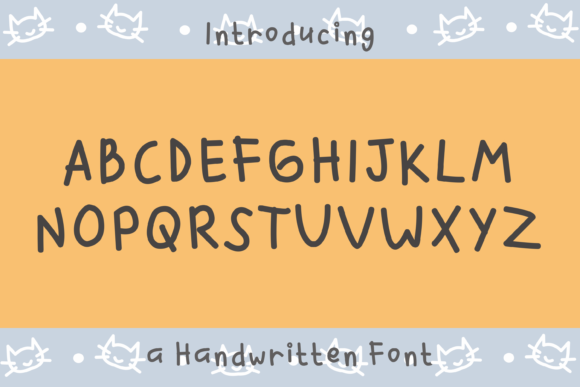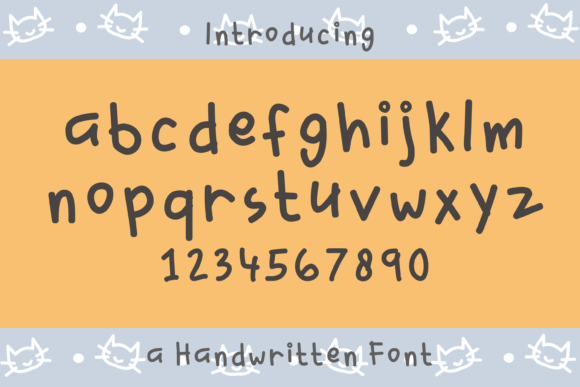
Introduction to Smiley Cat Font
Have you ever been working on a creative project, and you just can’t seem to find the right font to match your vision? You scroll through endless options, and nothing seems to capture the playful, whimsical feel you’re going for. That’s where the Smiley Cat Font comes in – a simple yet charming handwritten font that’s perfect for adding a touch of personality to your designs.
As a valuable resource for designers, Smiley Cat Font is a game-changer. Its natural and unique style makes it incredibly versatile, allowing you to use it for a wide range of creative projects, from social media graphics to wedding invitations. With a transparent background, you can easily overlay your text on top of images or use it as a standalone design element. Plus, the Smiley Cat Font is available for free download, making it an accessible design resource for designers of all levels.
Whether you’re a seasoned pro or just starting out, the Smiley Cat Font is a high-quality addition to any design arsenal. So why settle for a generic font when you can add a smile to your designs with the Smiley Cat Font?
Key Features of Smiley Cat Font
- High-quality design: The Smiley Cat Font is a premium font designed for creative projects, offering a unique and playful style.
- Large character set: The Smiley Cat Font features a large character set, including uppercase and lowercase letters, numbers, and punctuation marks.
- Perfect for creative projects: The Smiley Cat Font is ideal for designers working on creative projects, such as logos, branding, and advertising materials.
Honest Review: Smiley Cat Font
As a designer, I’m always on the lookout for unique and creative design resources to enhance my projects. The Smiley Cat Font is one such resource that caught my attention. ✨ Its playful and quirky nature makes it perfect for a variety of creative projects, from children’s books to social media graphics.
Here are some of the key features of the Smiley Cat Font:
- High-quality design: The Smiley Cat Font is designed with precision and attention to detail, ensuring that it looks great in any size or resolution.
- ⚠️ Limited character set: The Smiley Cat Font has a limited character set, which may not be suitable for complex designs.
- ⚠️ Not suitable for formal designs: The font’s playful nature may not be suitable for formal or professional designs.
Overall, the Smiley Cat Font is a great addition to any designer’s toolkit. While it may have some limitations, its unique design and versatility make it a valuable resource for creative projects.
The Smiley Cat Font is ideal for social media graphics, blog posts, and marketing materials. It’s also a great design resource for creating invitations, posters, and other visual content. With its transparent background and high-quality design, this font is sure to add a touch of fun and creativity to any project.